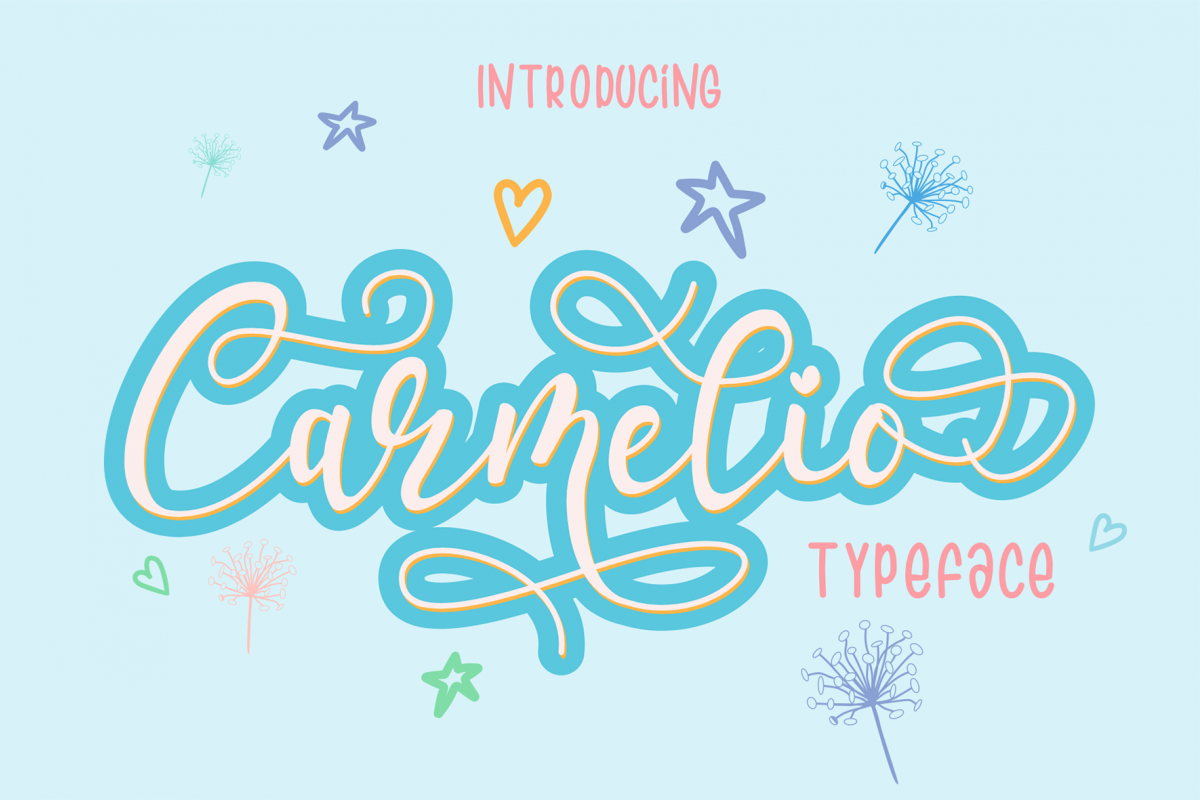
Carmelio
This is our newest product, Carmelio is a very nice font for logos, blog / web headlines, clothing, invitations, posters, cafe / restaurant signs, quotes and many others. Happy design!